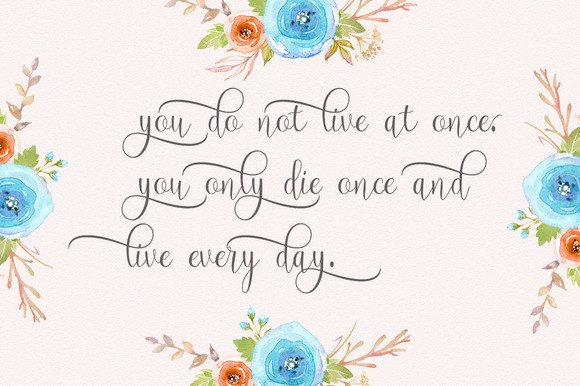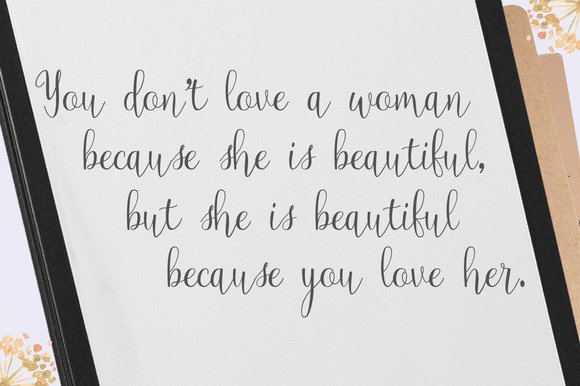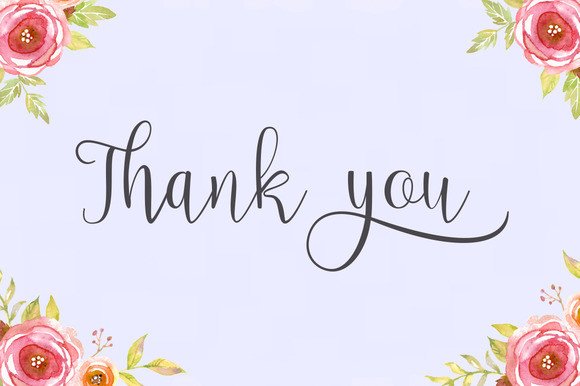
About the Magnolia Font
Magnolia is a stunning handwritten font. Magnolia comes with a huge set of almost 350 glyphs and has a very elegant look which makes it feel like a very fancy font.
The process of creating Magnolia
Every letter in Magnolia has been crafted with 3 key values in mind: Elegance, Coherence & Uniqueness.
Because of these values, the creation of this font was a very delicate process. Every letter had to be drawn, digitized, optimized, and tested. This resulted in many do-overs and made creating Magnolia a very time-consuming process. This resulted however in this stunning, balanced font.
Usage of Magnolia
Magnolia can be used for many purposes. Because of the elegant letters, it is perfect as a font for wedding invites, letterhead, personalized business cards, baby shower invites, and much more.
You can keep using Magnolia over and come up with a different result each time.